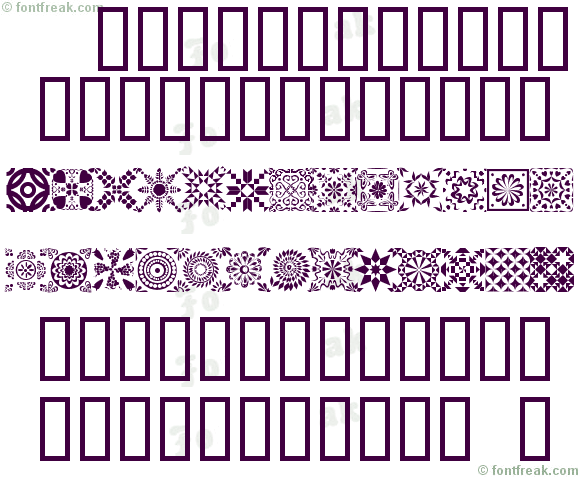
Quilter's Delight
About Quilter's Delight
Quilter's Delight by Gabrielle Gaither is a decorative font that embodies a unique blend of artistic flair and functionality. This shareware font is characterized by its intricate patterns and charming motifs, making it an ideal choice for projects that require a touch of creativity and warmth. With a medium stroke weight and moderate contrast, Quilter's Delight exhibits a playful yet sophisticated aesthetic. The spacing is thoughtfully designed to maintain readability while allowing the decorative elements to shine through, making it versatile for various applications.
This font is particularly well-suited for wedding invitations, where its intricate designs can add a personalized touch to the big day. Additionally, it works beautifully for crafting unique greeting cards, capturing the essence of heartfelt messages. Restaurant menus can also benefit from Quilter's Delight, lending a cozy and inviting atmosphere that complements any culinary theme. Graphic designers will find this font invaluable for creating eye-catching posters and promotional materials, while small business owners can utilize it for branding purposes that stand out in a crowded market.
The target audience for Quilter's Delight includes graphic designers, content creators, and small business owners looking for a distinctive font that resonates with their brand identity. Its unique visual characteristics set it apart, making it a memorable choice for any project.
What truly makes Quilter's Delight stand out is its ability to combine artistry with practicality. The intricate designs offer a rich visual experience without compromising readability, allowing for seamless integration into a variety of contexts. For those seeking to elevate their designs, the Quilter's Delight font free download provides an excellent opportunity to explore this captivating typeface and incorporate its charm into your creative endeavors.